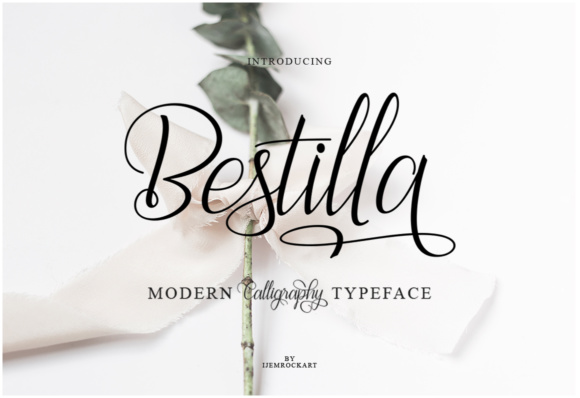
Bestilla Font
Unleash the Beauty of Bestilla: An Enchanting Script Font for the Creative Soul
Embark on a captivating journey into the world of calligraphy with Bestilla, a stunning swashy font crafted to ignite your creative spirit. This extraordinary font, meticulously designed by the talented Ijem RockArt, is a celebration of elegance and artistry, featuring an array of decorative characters that will transform your designs into breathtaking masterpieces.
With over 1,300 glyphs at your disposal, Bestilla grants you limitless possibilities to create truly unique and captivating calligraphy. Its graceful strokes and intricate flourishes will add a touch of magic to your invitations, logos, social media posts, and any project that calls for a touch of enchantment.
Immerse yourself in the beauty of Bestilla's extensive character set, where each letter dances across the page with an air of ethereal grace. From its sweeping ascenders to its delicate descenders, every curve and line is crafted to evoke a sense of wonder and enchantment.
Whether you're a seasoned calligrapher or just starting your creative journey, Bestilla will guide you effortlessly through the art of beautiful lettering. Its intuitive design makes it a joy to use, allowing you to effortlessly create stunning compositions that will leave a lasting impression on your audience.
Discover the endless possibilities of Bestilla and unlock your creative potential. Its versatility knows no bounds, making it the perfect choice for a wide range of projects:
- Add a touch of elegance to your wedding invitations, creating a timeless keepsake that captures the magic of your special day.
- Design eye-catching logos that embody your brand's personality, leaving a lasting impression on your customers.
- Elevate your social media presence with captivating posts that stand out from the crowd.
- Create enchanting illustrations and artwork that transport viewers into a realm of imagination and wonder.
With Bestilla as your creative companion, the limits are boundless. Dive into the world of calligraphy and let your creativity flourish like never before.